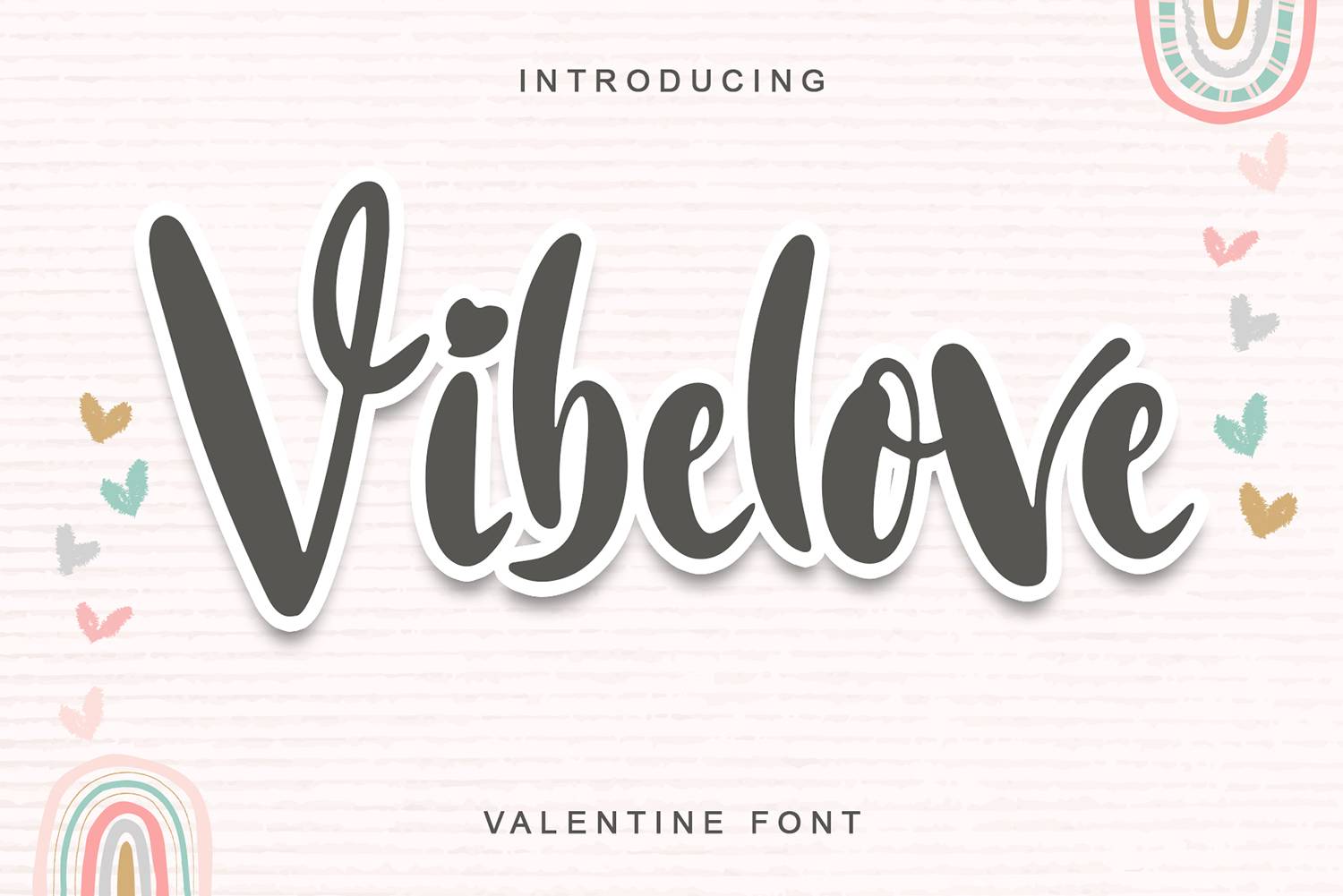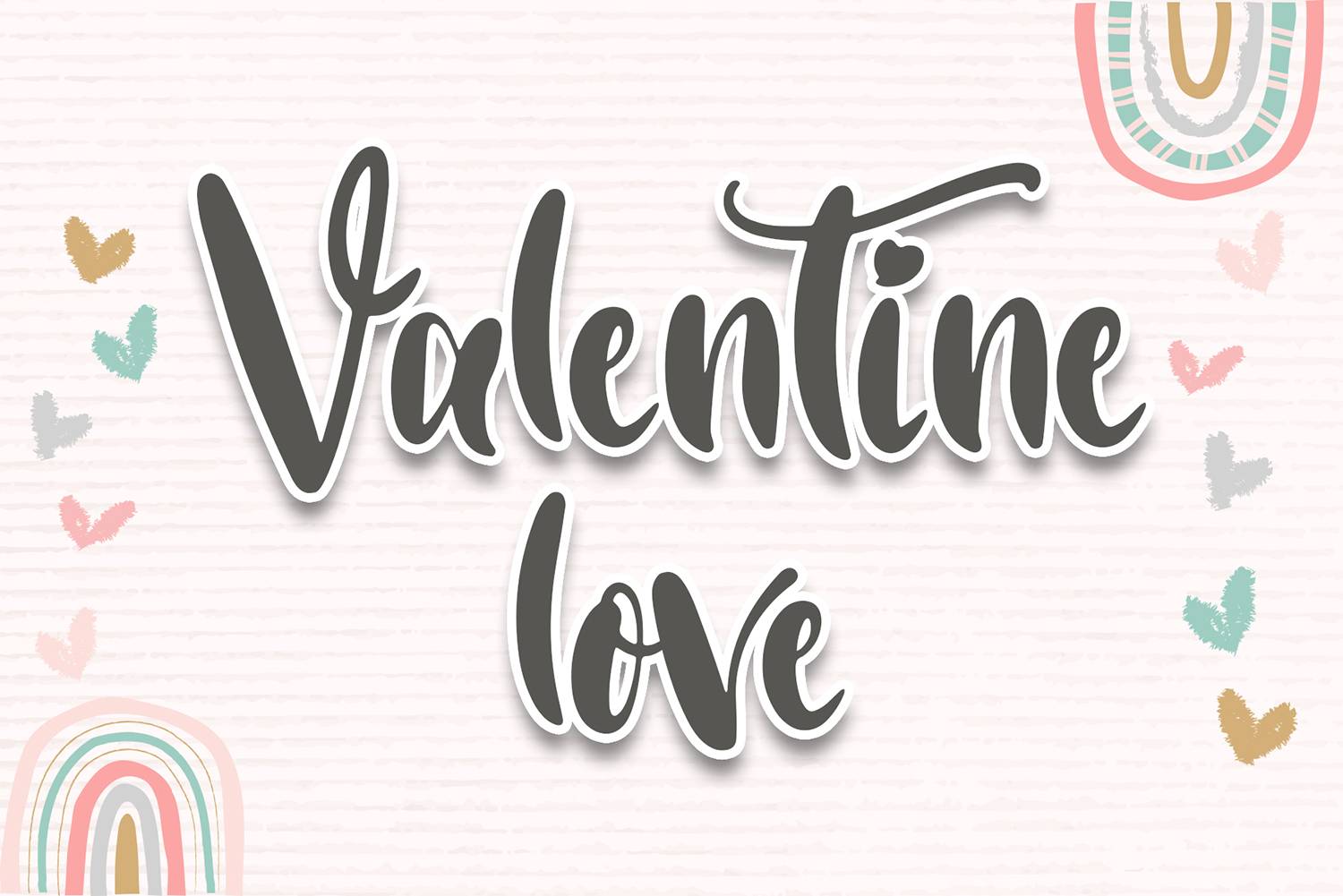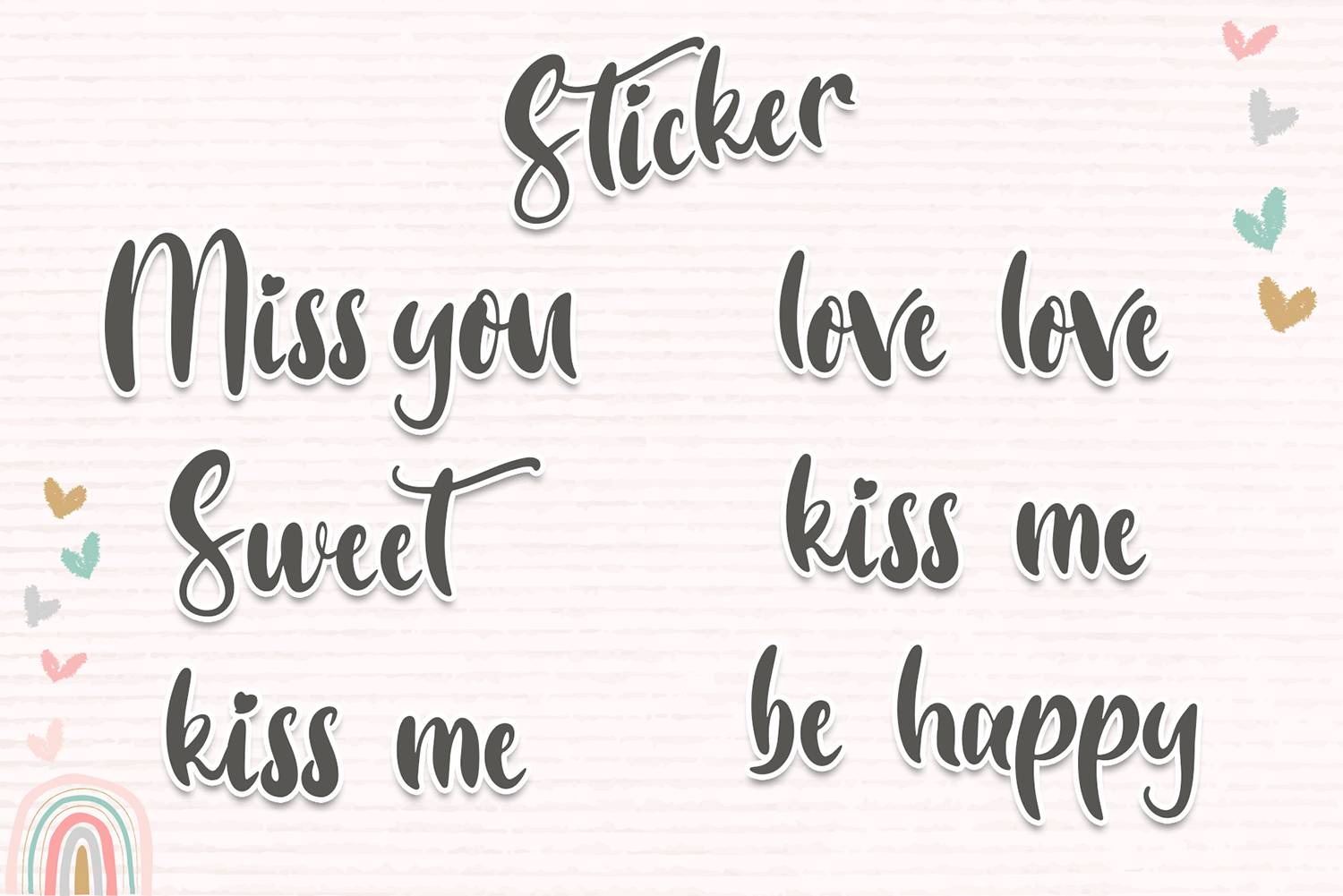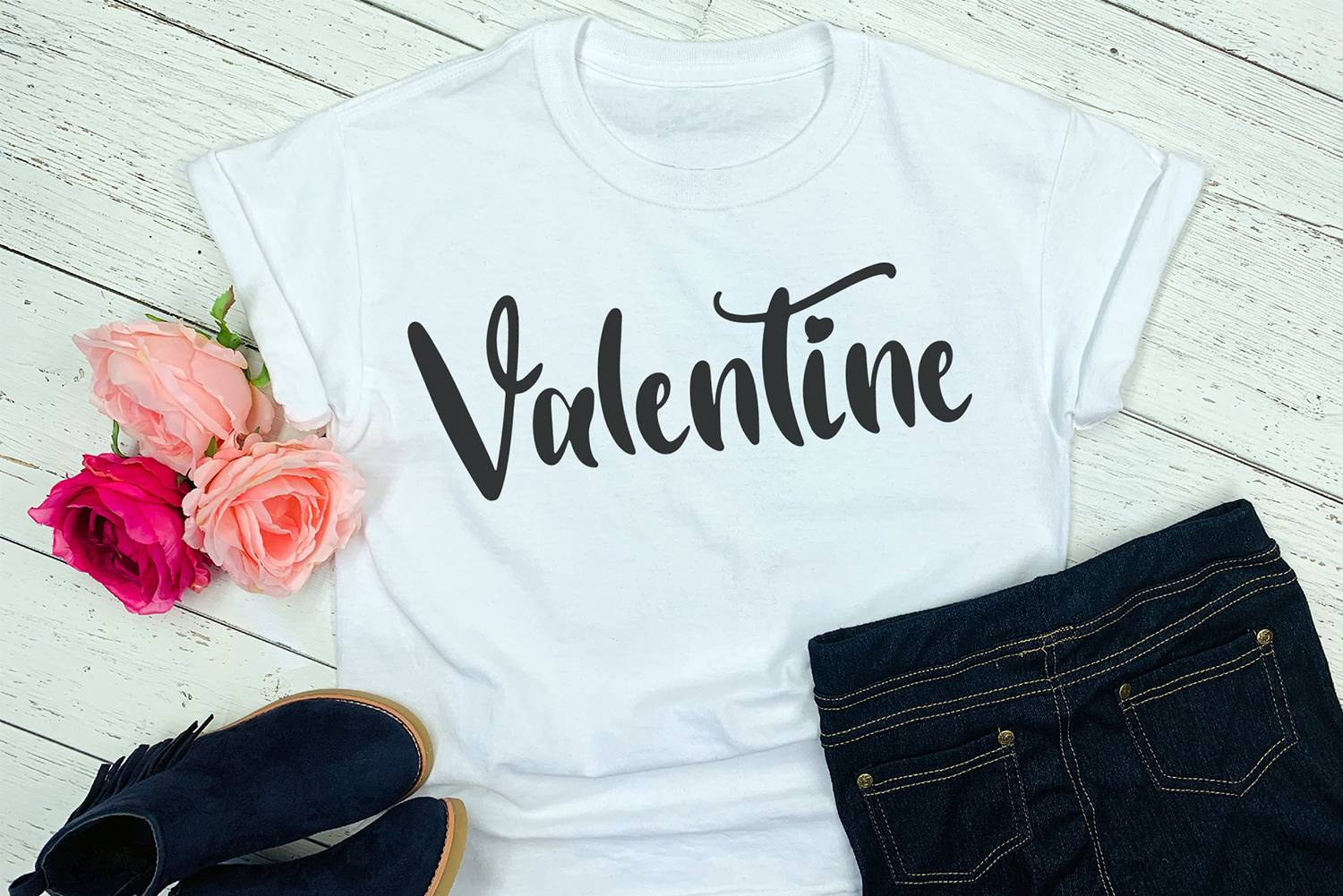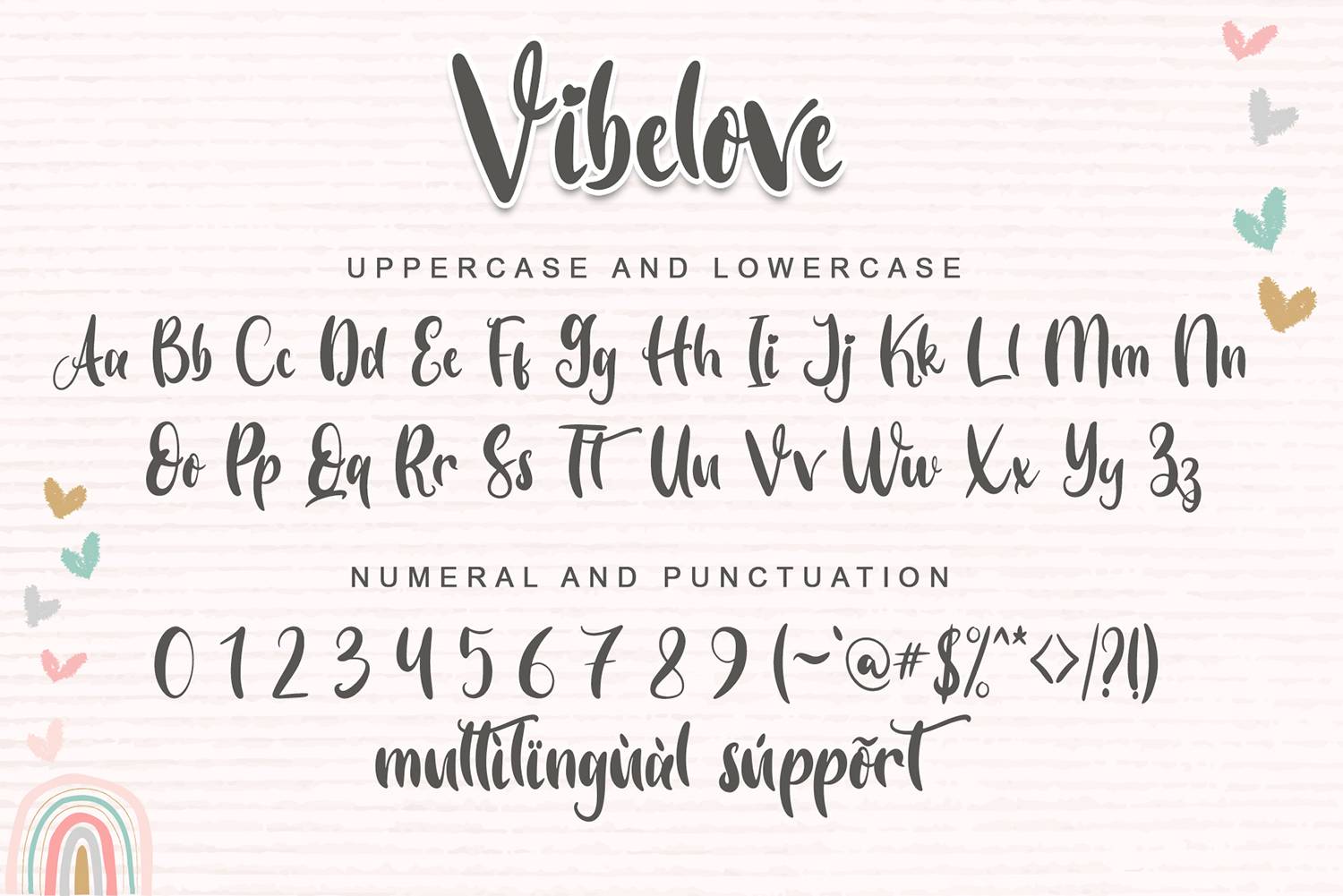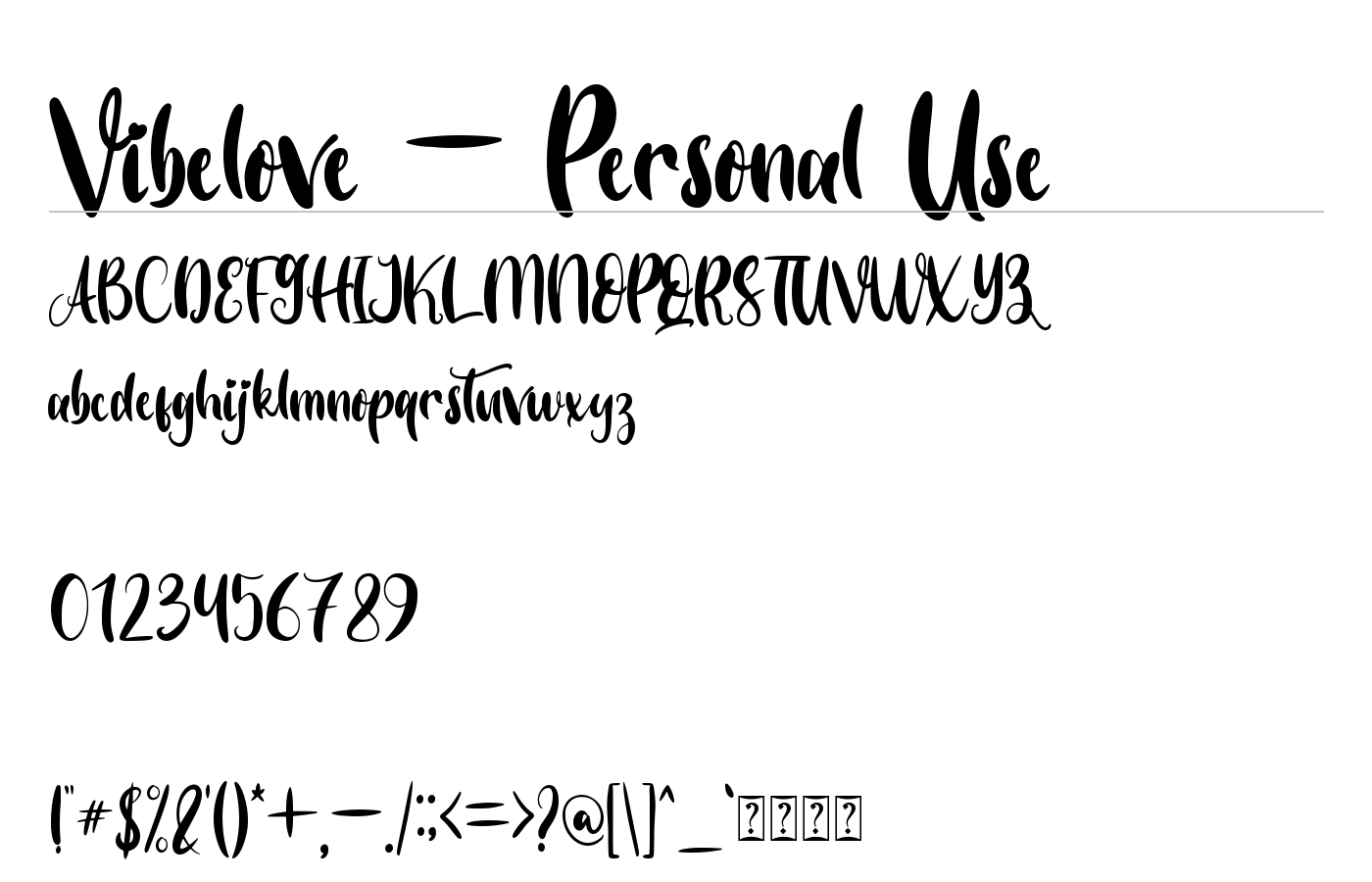
Vibelove is a playful and elegant handwritten script font with smooth, flowing strokes and a casual yet refined personality. Its unique letterforms, with varying stroke thickness and charming flourishes, make it perfect for creative branding, invitations, and personal projects that seek a warm and approachable feel. This font works well in headlines or display use where a touch of artistic flair is desired.
Vibelove Font
About Vibelove Font